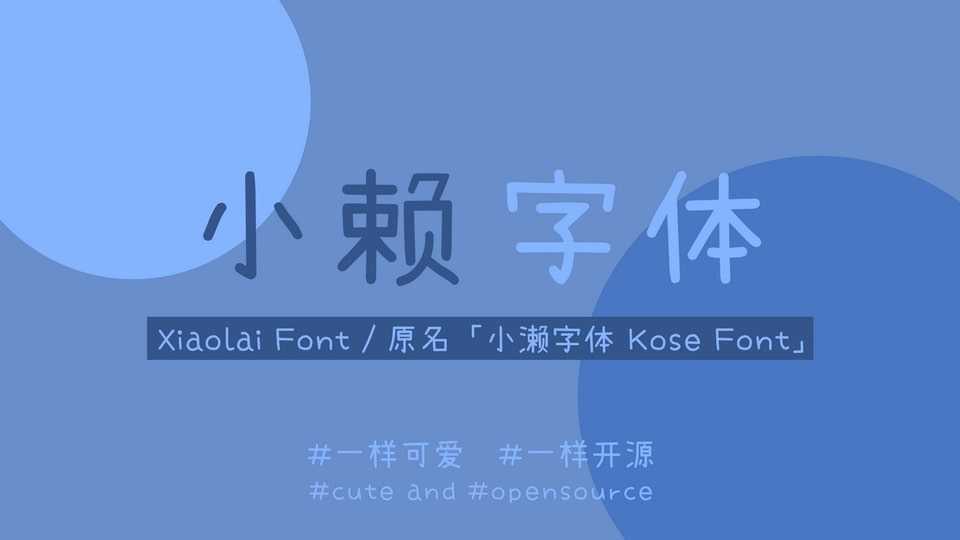
Download Xiaolai font, a charming and organic typeface inspired by Seto font by Nozomi Seto. Designed with a playful yet elegant touch, it features soft, rounded strokes that create a friendly and approachable aesthetic.
Designer: Nozomi Seto